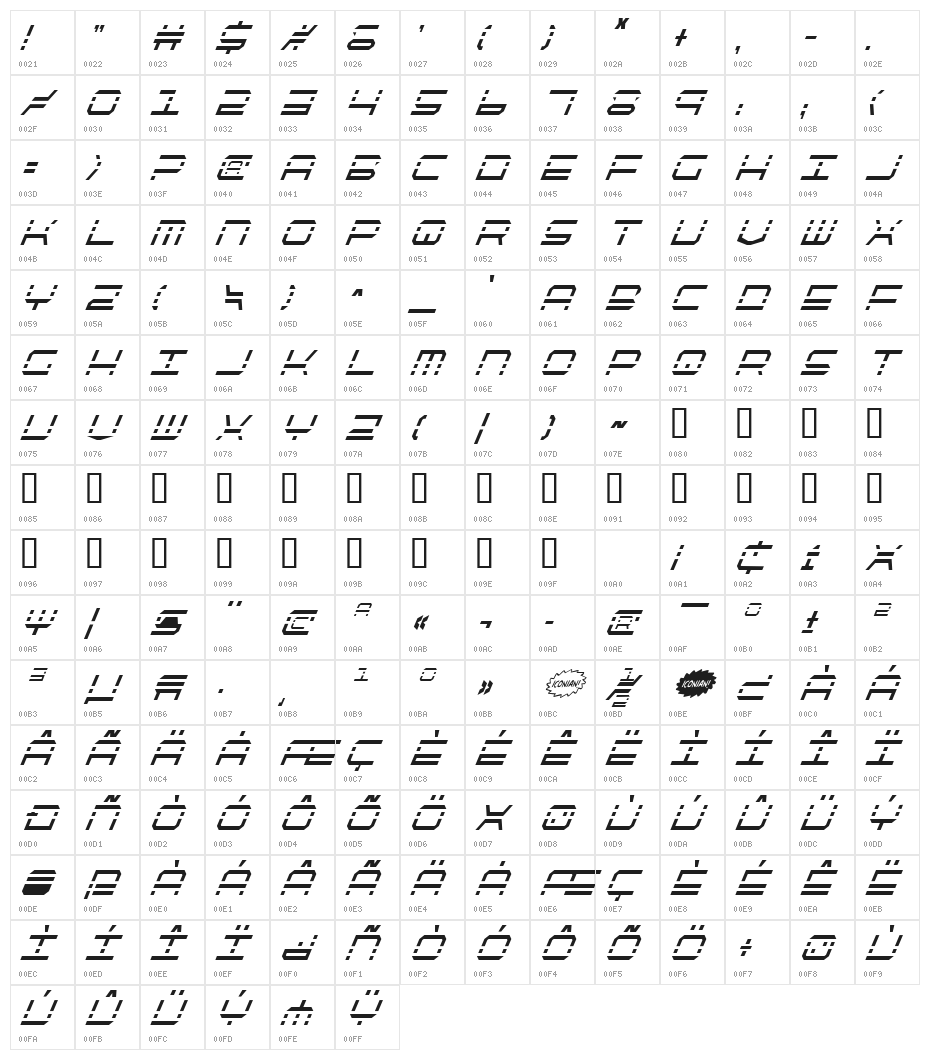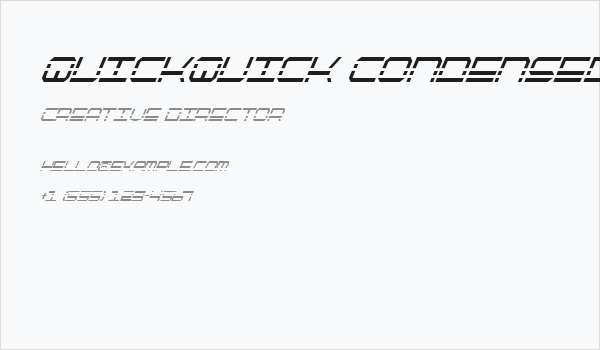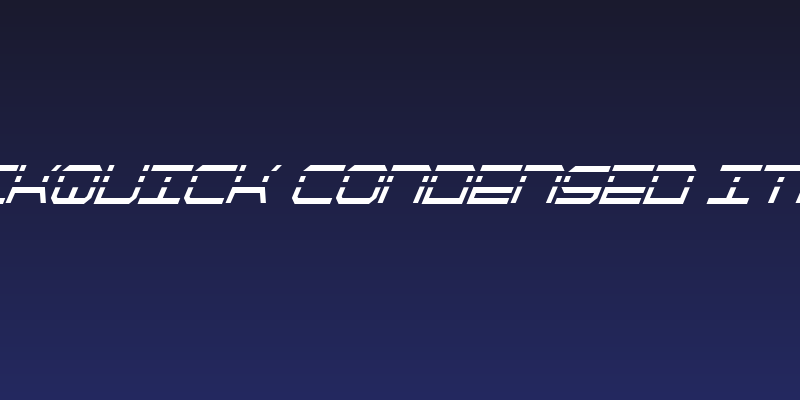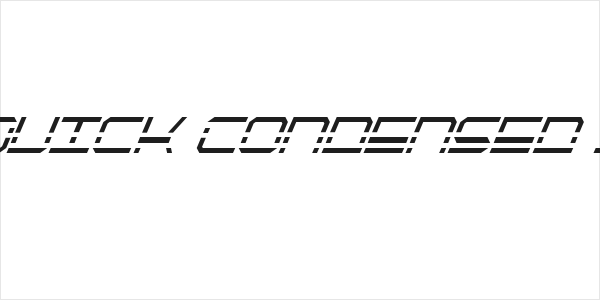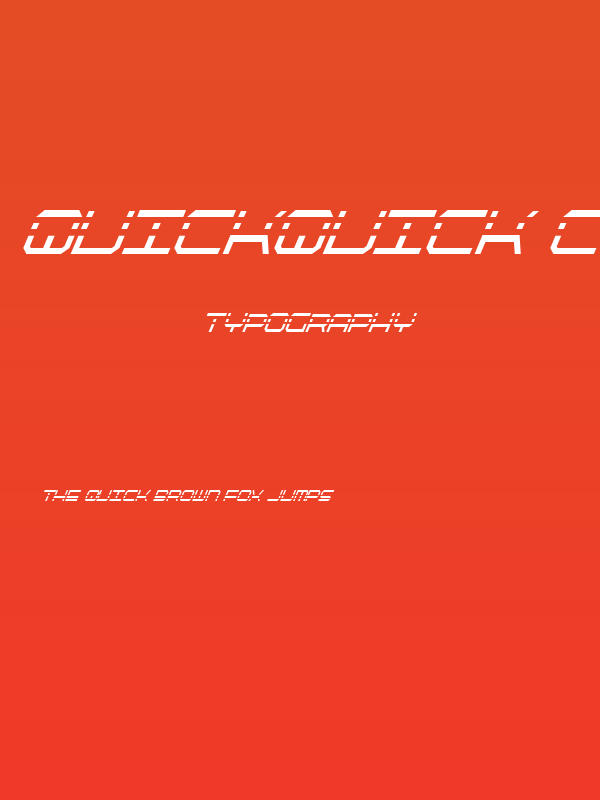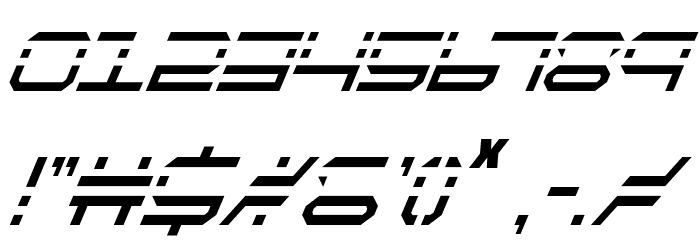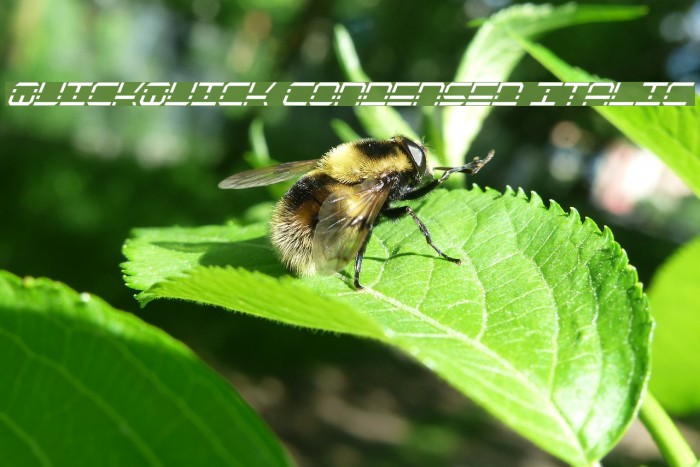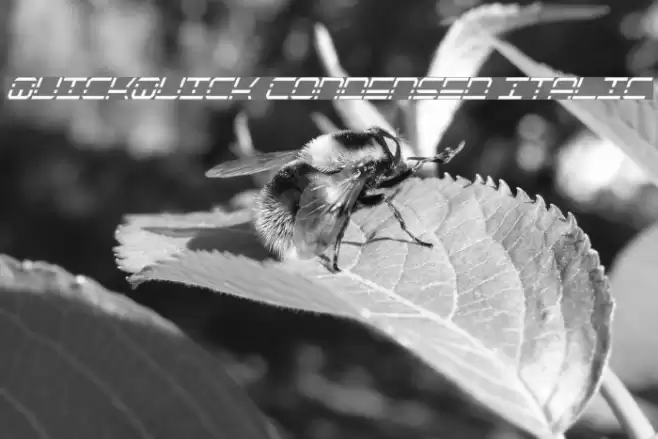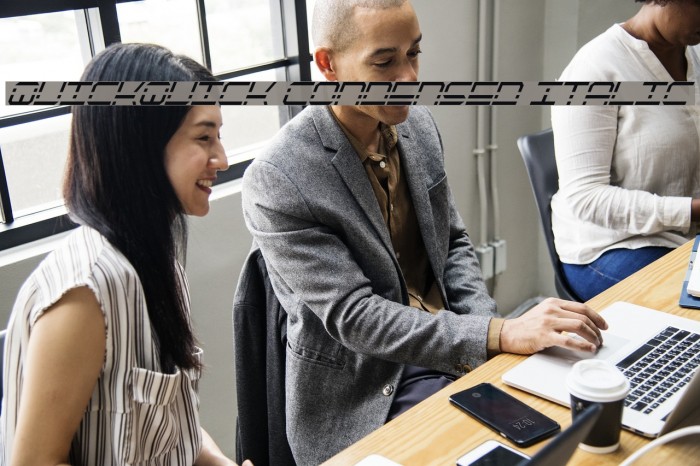
QuickQuick Condensed Italic Font
QuickQuick Condensed Italic Description
This font features a futuristic and dynamic design with a condensed and italicized style. The characters are composed of bold, angular lines with a distinct geometric pattern, giving it a high-tech and modern appearance. The uppercase and lowercase letters maintain a consistent slant, enhancing the italic effect. Numbers and special characters follow the same design principles, ensuring uniformity across all glyphs. The font's unique structure makes it stand out, suitable for projects that require a cutting-edge and innovative look.
| Proposed Projects | Ideal for technology branding, sci-fi movie posters, video game titles, and modern advertising campaigns. |